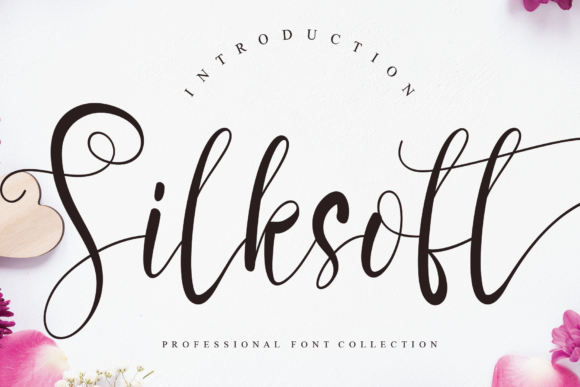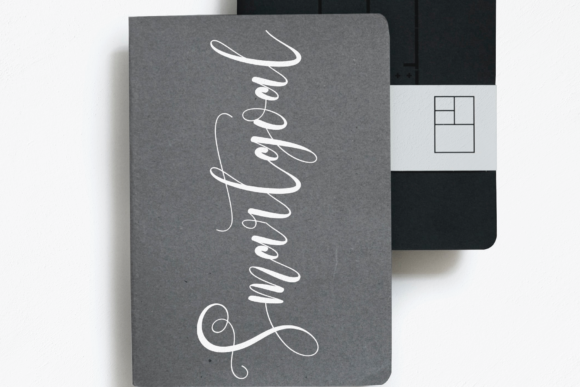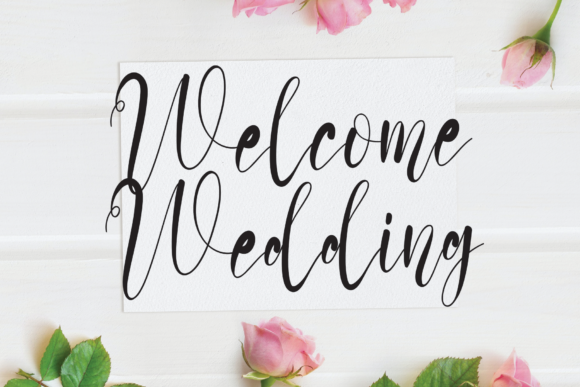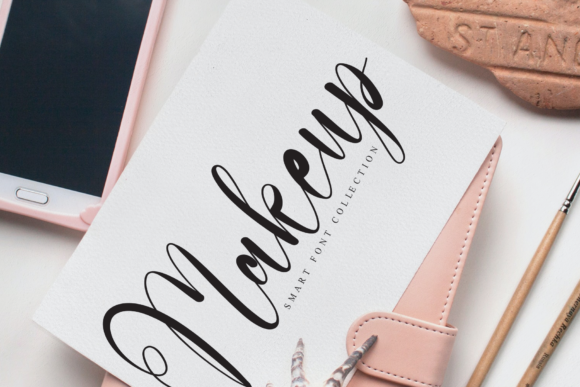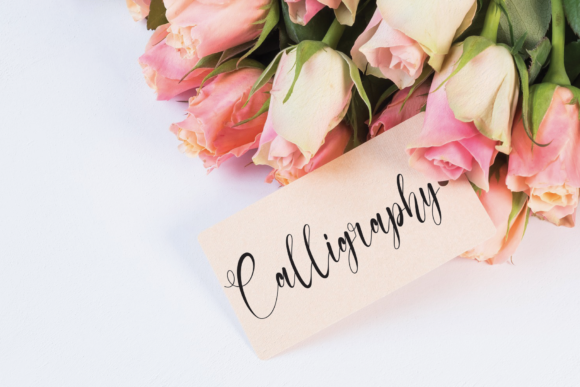
HomeScript FontsSilksoft Font Script Fonts Silksoft Font FacebookXPinterestWhatsApp 1 of 5 Silksoft Font Poster 2... Silksoft Font Poster 3... Silksoft Font Poster 4... Silksoft Font Poster 5... About Silksoft Font Silksoft is a gorgeous handwritten font. Use this gorgeous and unique font to bring any DIY project to life! DOWNLOAD NOW People also explored Darla Wedding Monogram Font Fox Terrible Font Retro Free Sanita Font Smiley Cat Font Brother Font Miletta Font Anjelica Font 317 0 TagsSilksoft Font Previous articleParadise FontNext articleWorthwhile Font LEAVE A REPLY Cancel reply Comment: Please enter your comment! Name:* Please enter your name here Email:* You have entered an incorrect email address! Please enter your email address here Website: Save my name, email, and website in this browser for the next time I comment. Personal Use Free Archeology Personal Use Free Read more about this font Camping Personal Use Free Read more about this font Shnobel Personal Use Free Read more about this font Fadhista Personal Use Free Read more about this font BLOG Free Fonts Risk: Why Free Fonts Can Be Dangerous for Designers Free Fonts Risk: Why Free Fonts Can Be Dangerous for Designers Using free fonts is a common practice in web and graphic design. However, the... How to Install and Use Fonts on Windows, macOS, and Web Projects Top 10 Handwritten Fonts That Elevate Your Designs Where to Buy American Fonts Online in 2024